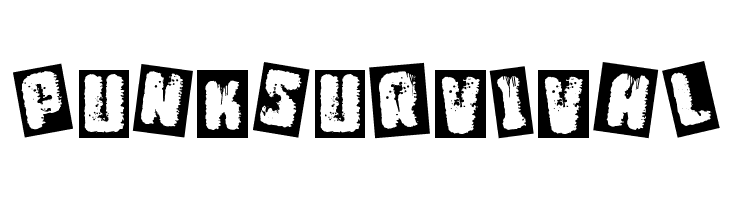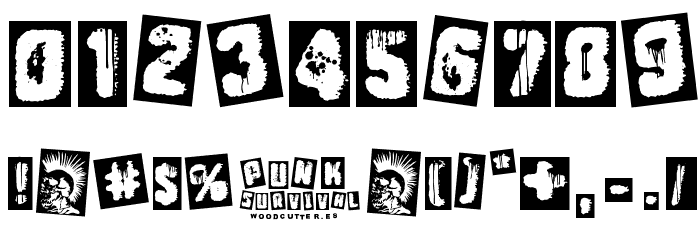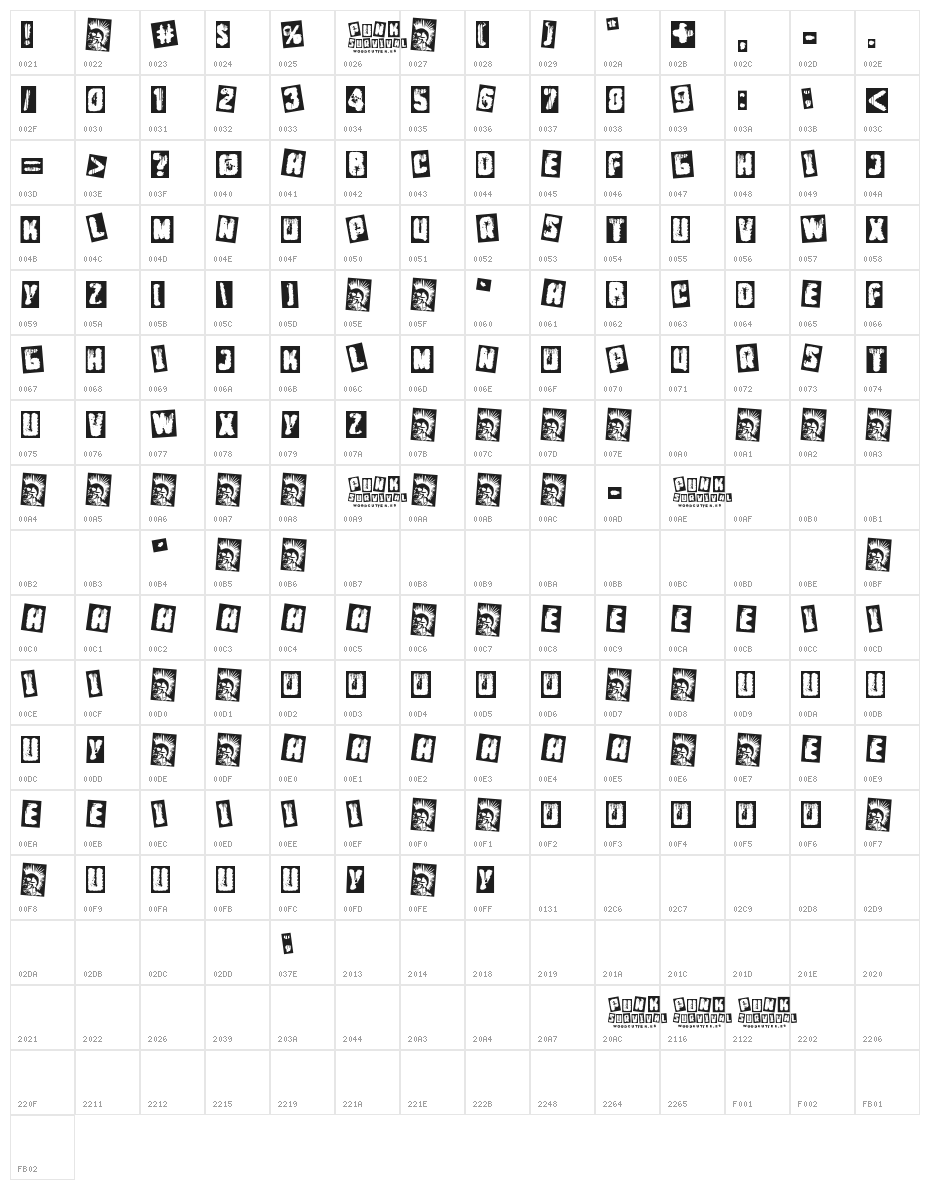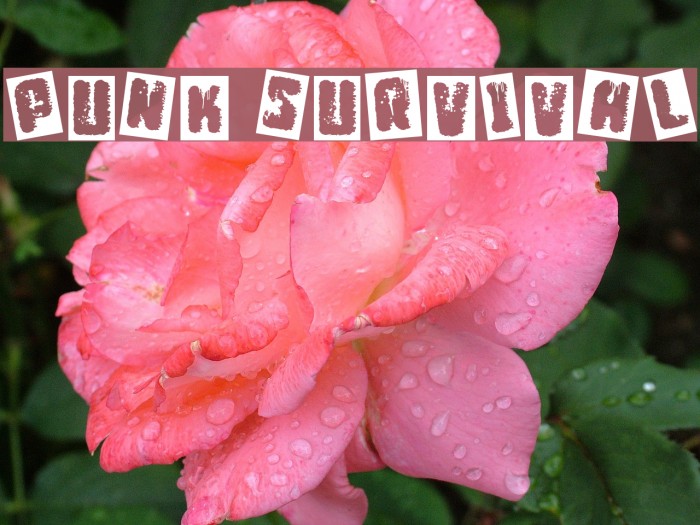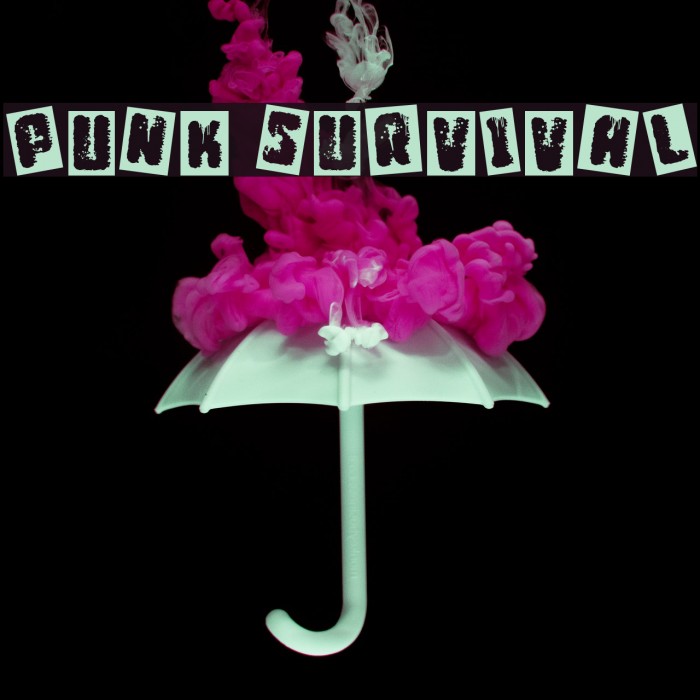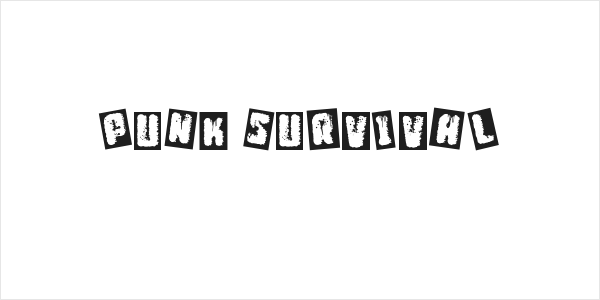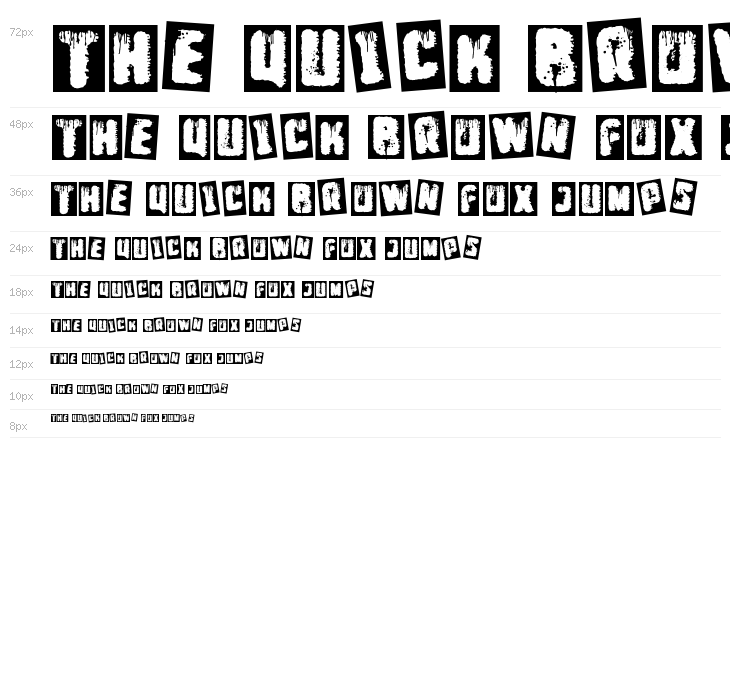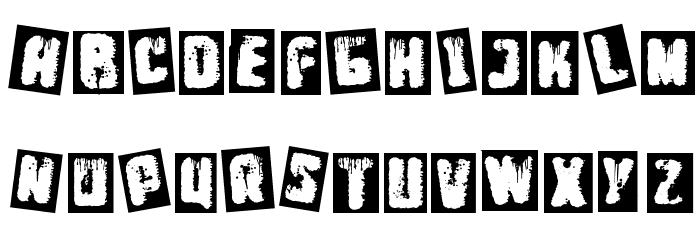
Punk Survival Font
Punk Survival Description
This font embodies a gritty, rebellious aesthetic, reminiscent of punk rock culture. Each character appears as if it has been cut out from a magazine or newspaper, with rough, jagged edges and a distressed texture. The letters are bold and impactful, with a high contrast between the thick strokes and the negative space. The overall design is chaotic yet structured, capturing the essence of an underground, DIY ethos. The font's unique style is perfect for projects that require a bold statement or an edgy, alternative vibe.
| Overall Style | Punk, Rebellious, Edgy |
| Proposed Projects | Ideal for music album covers, concert posters, rebellious fashion branding, or any creative project seeking an edgy, alternative look. |